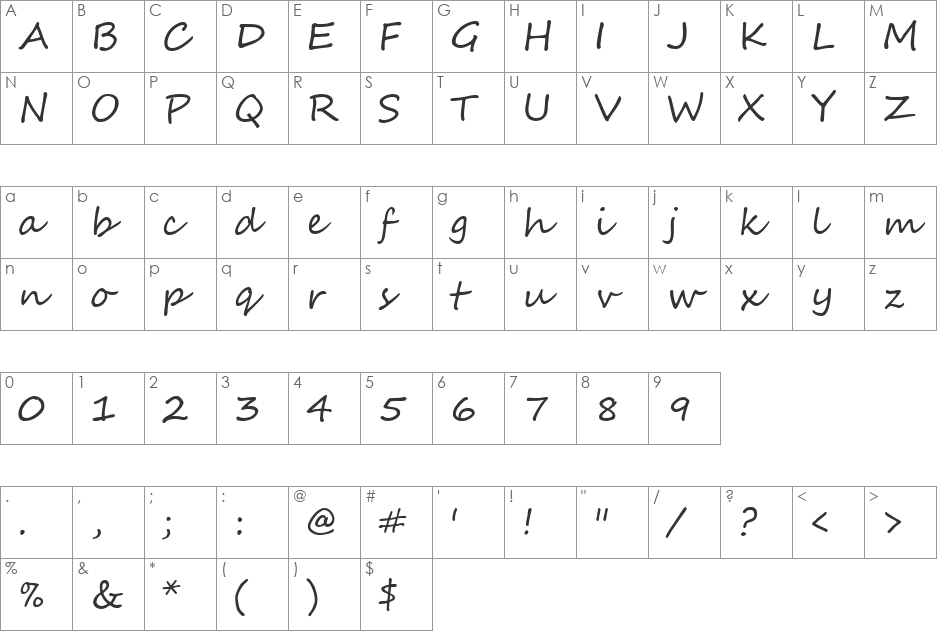
Segoe Script Font Html
The Segoe Script (2 Fonts) Contains Stylish Handwriting Script Fonts.
Download segoe script, font family segoe script by microsoft corporation with regular weight and style, download file name is segoesc.ttf 59 professional segoe script regular fonts to download please note: The letterforms in segoe script feature extended strokes established in cursive handwriting. Although it was originally designed by droid, it is very similar to segoe ui in the lowercase format.